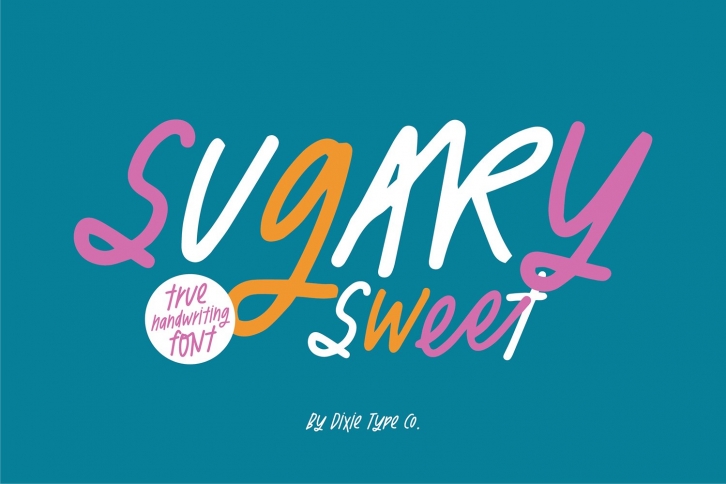
"Sugary Sweet" handwriting script font.
{ A typographic font hand-lettered with love by Dixie Type Co. }
Sugary Sweet is a true handwriting font that is perfect for social media or crafty projects. Use it for t-shirts, birthday invitations, and more! This font includes 64 ligatures, basic punctuation, and numbers.